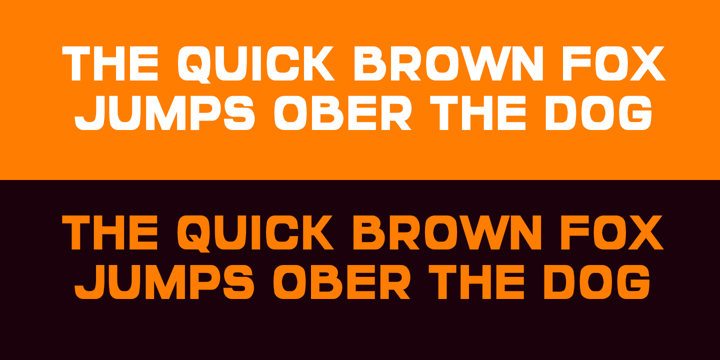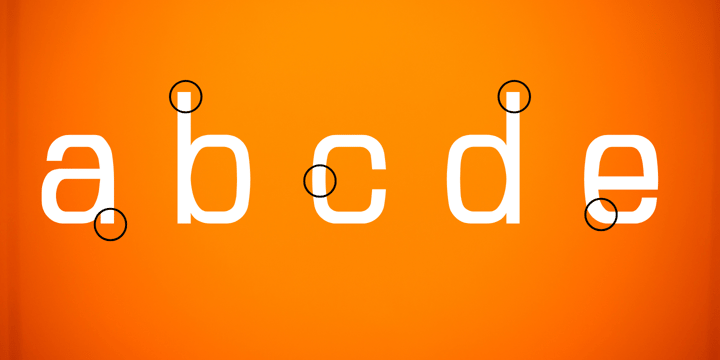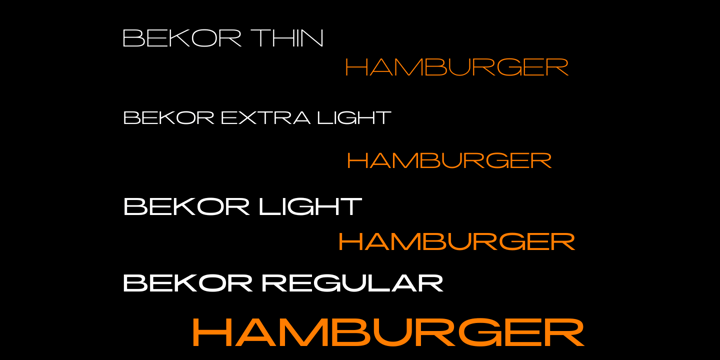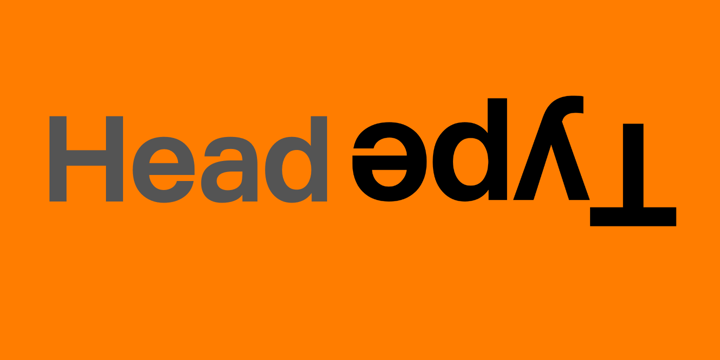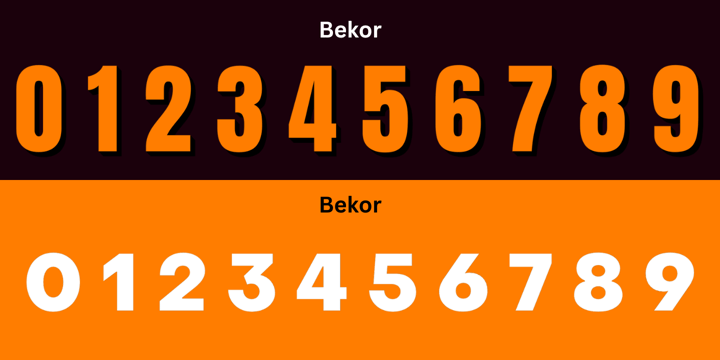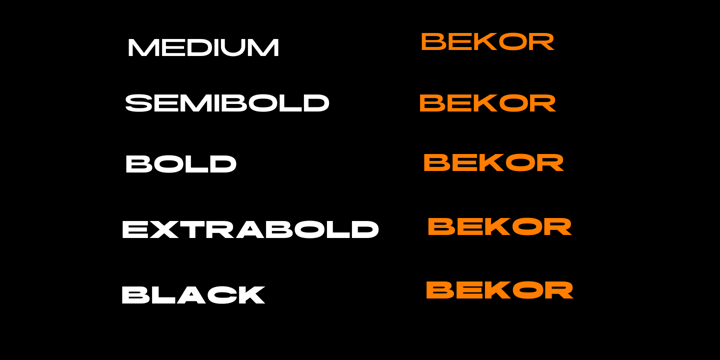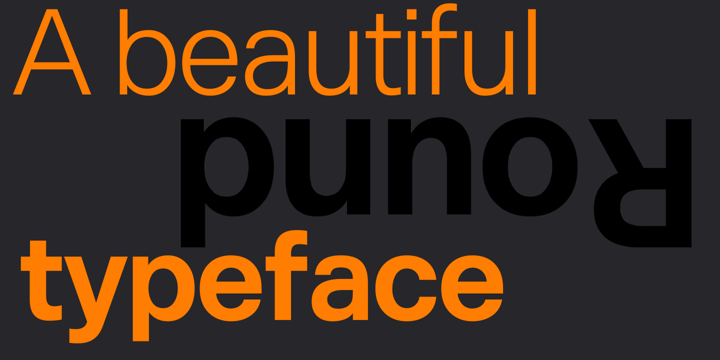
Challenger Bundle
Challenger Font Bundle is minimal and elegant collection of lot typefaces with multilingual support. They are very versatile fonts that works great in large and small sizes.
This collection is perfect for branding projects, home-ware designs, product packaging, magazine headers - or simply as a stylish text overlay to any background image
Challenger Font Bundle is minimal and elegant collection of lot typefaces with multilingual support. They are very versatile fonts that works great in large and small sizes.
This collection is perfect for branding projects, home-ware designs, product packaging, magazine headers - or simply as a stylish text overlay to any background image